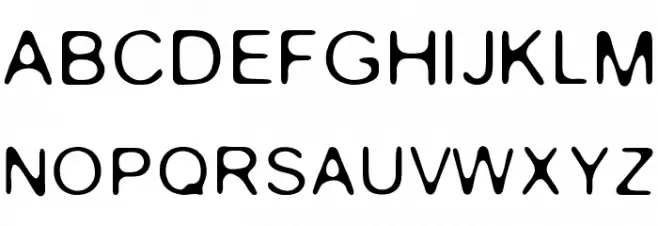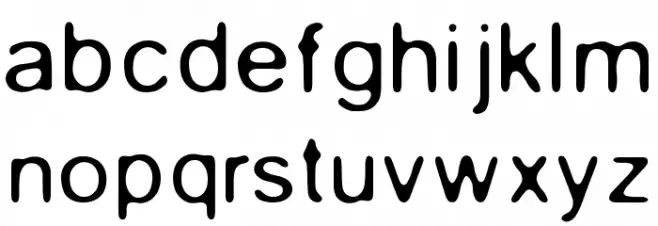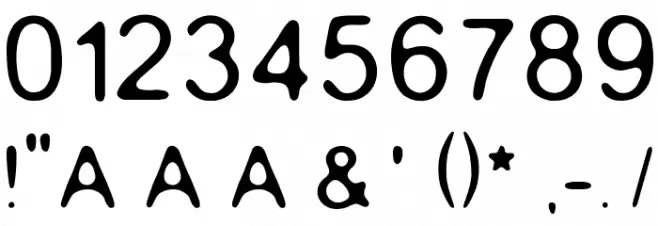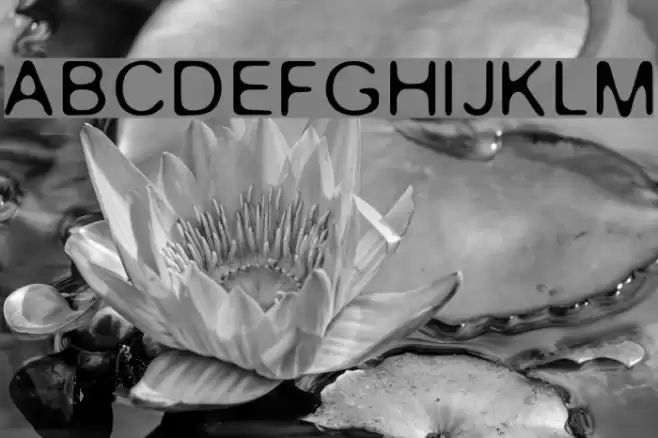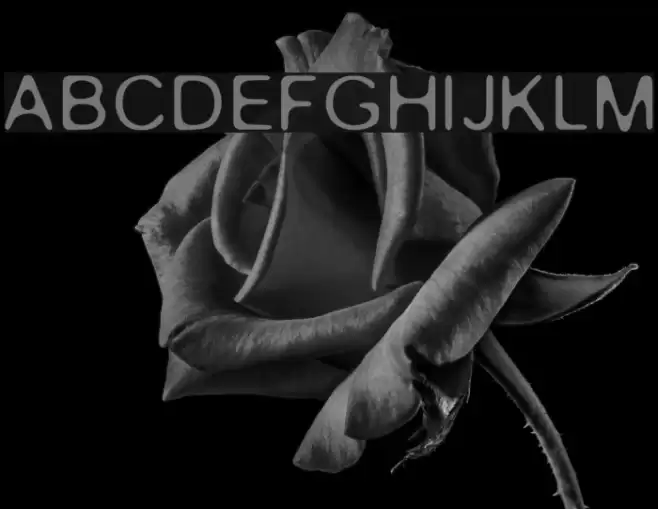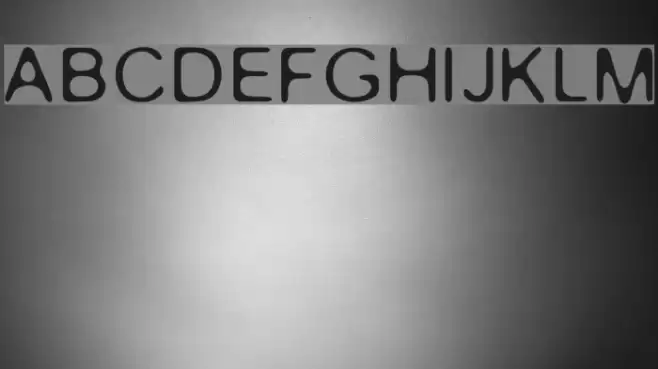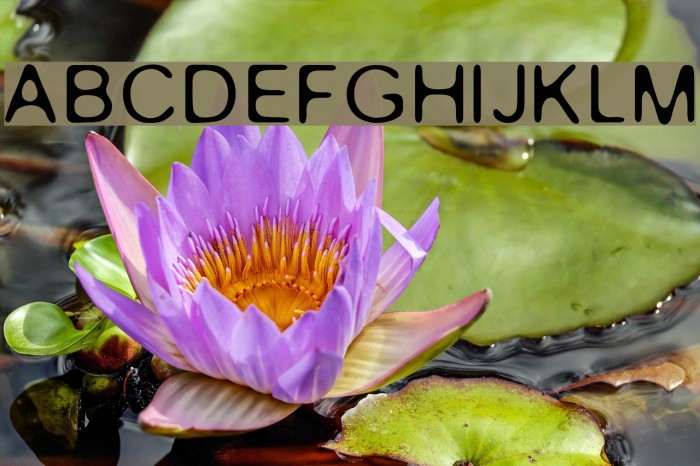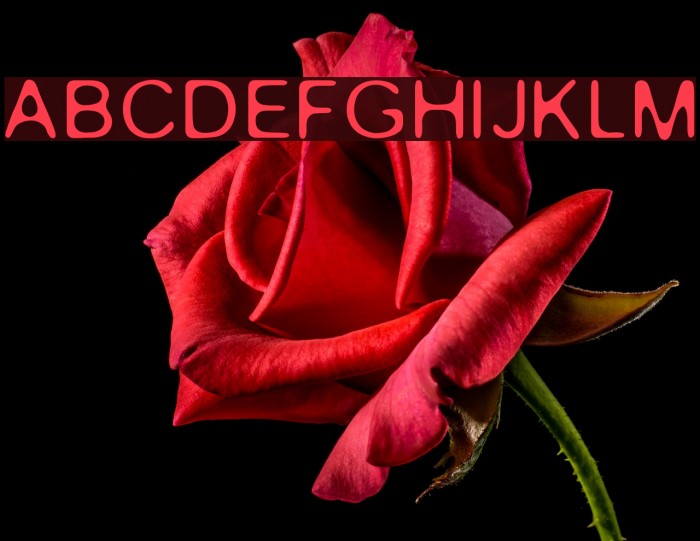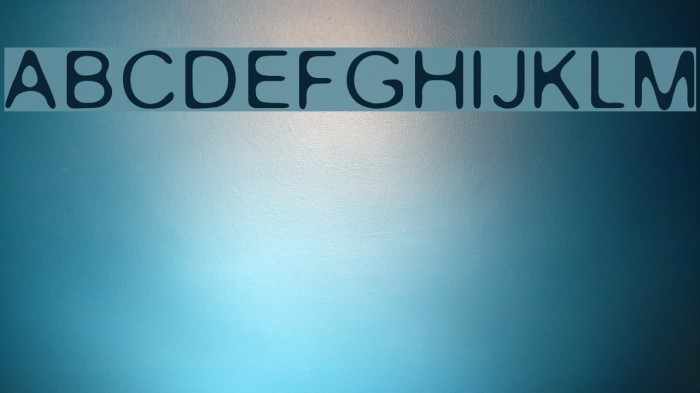
Gaussian-Blur
This font features a playful and rounded design, characterized by its smooth curves and slightly irregular shapes that give it a whimsical and friendly appearance. The letters are bold and have a consistent stroke width, which enhances readability while maintaining a casual and informal style. The numbers and special characters follow the same design principles, ensuring uniformity across all elements. Its unique style makes it stand out, offering a modern twist on traditional rounded fonts. The font's overall appearance is approachable and versatile, suitable for a variety of creative applications.
A playful, rounded font with smooth curves and a friendly appearance.
- Proposed Projects: Ideal for children's books, playful branding, casual invitations, and creative posters.
- Use Case: Headlines, Logos, Posters